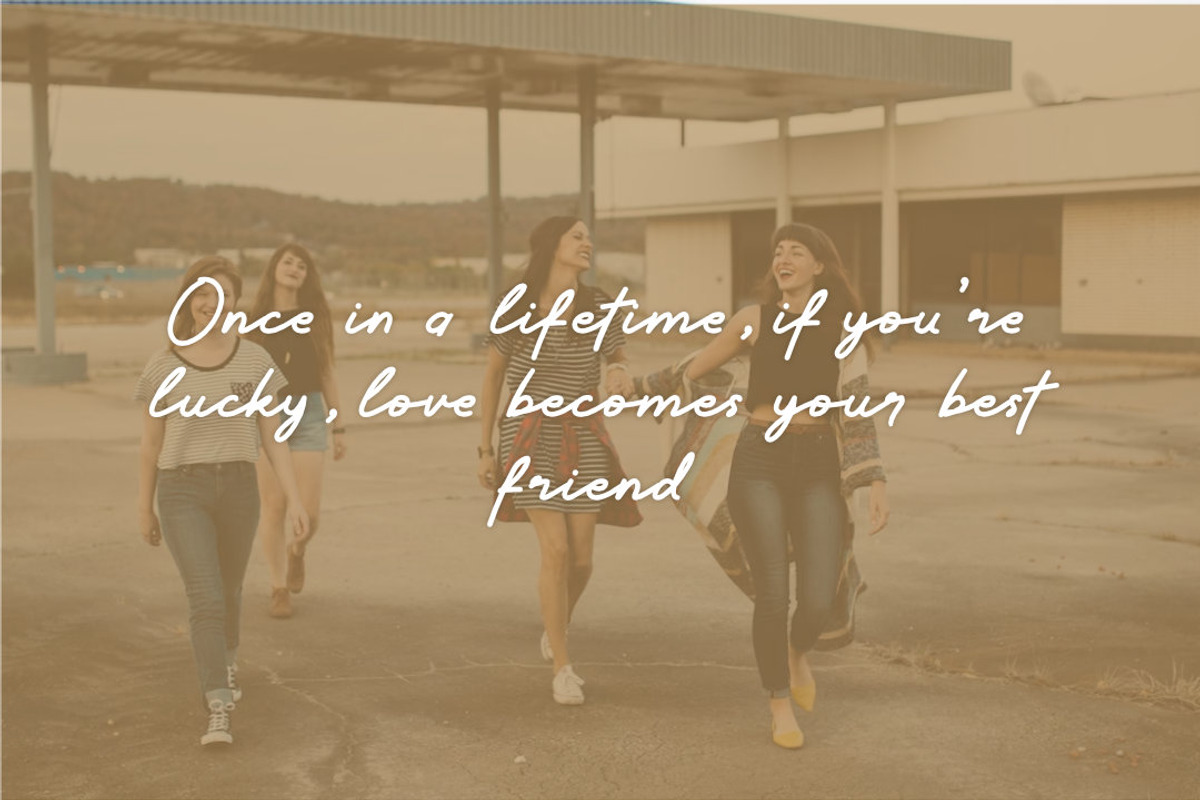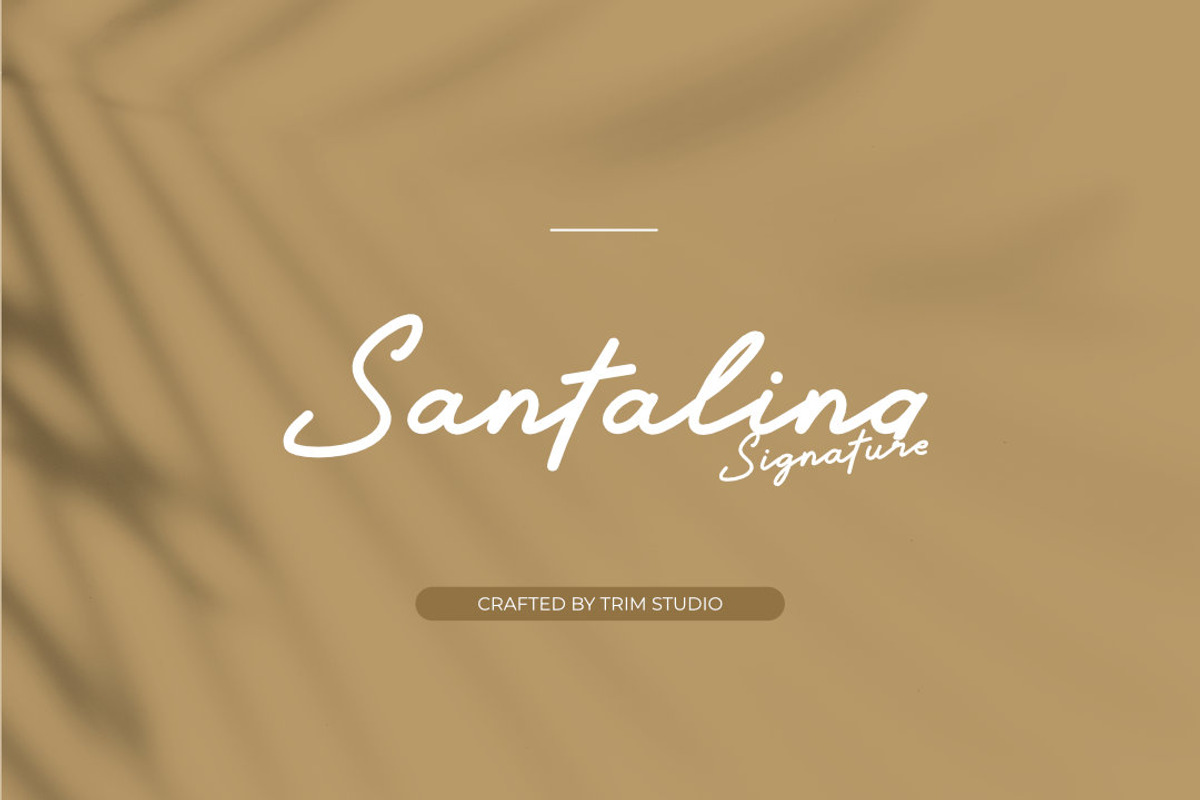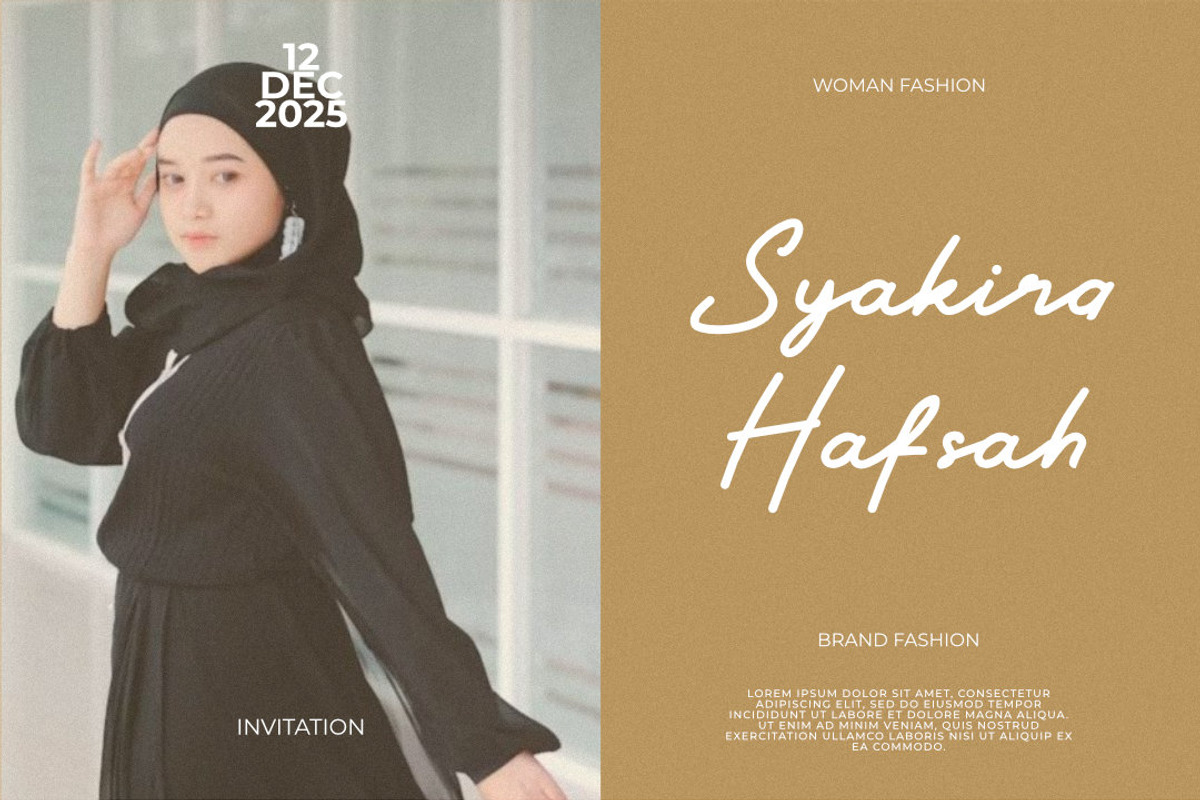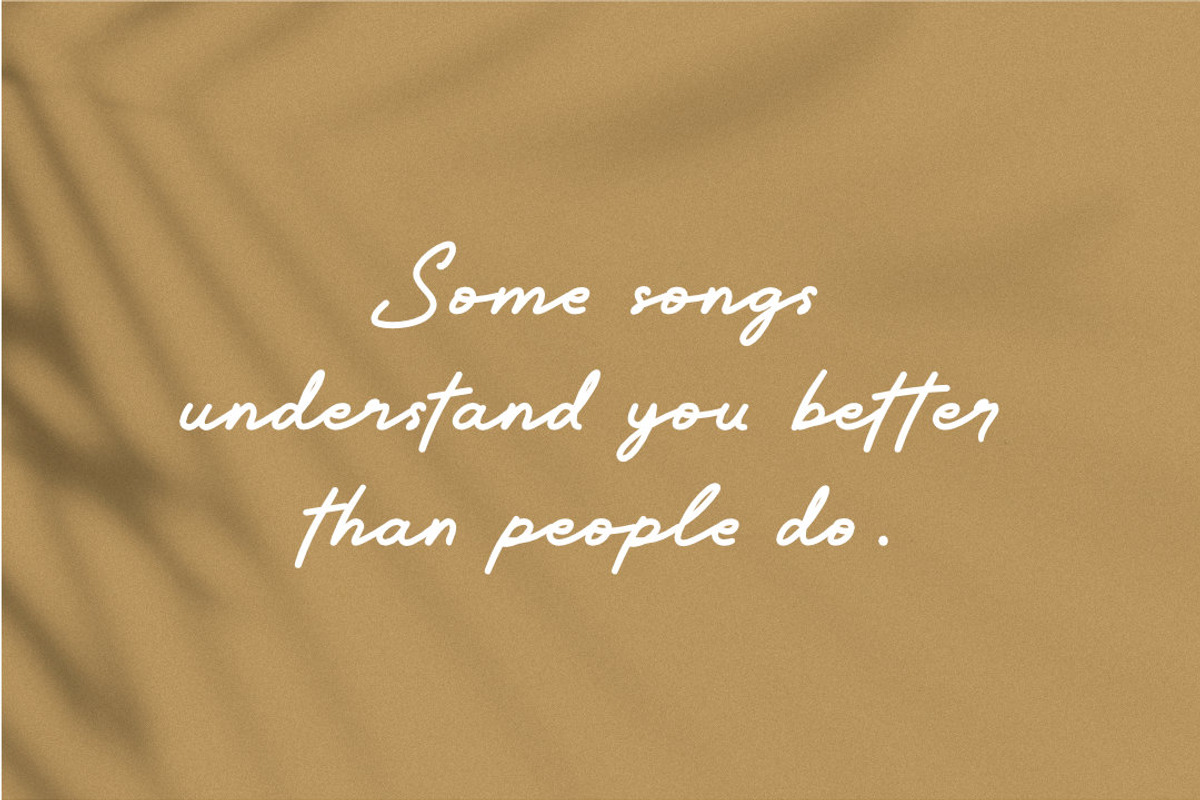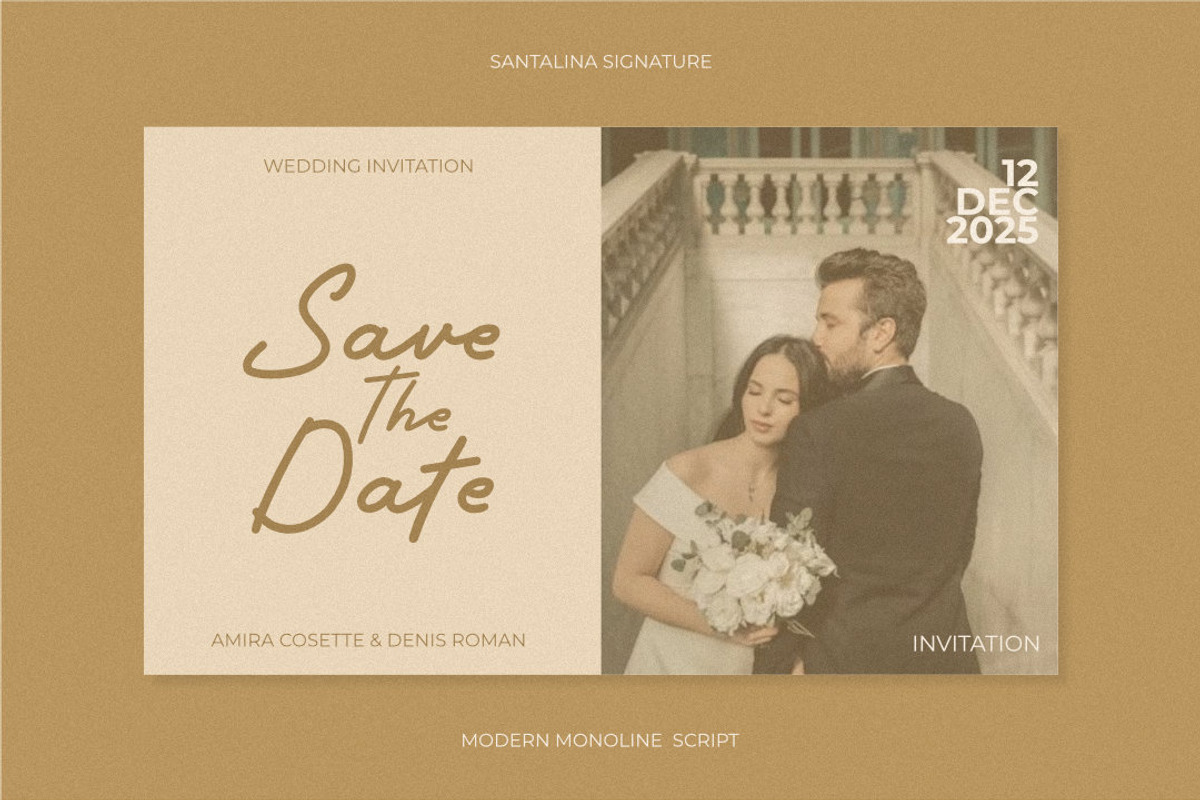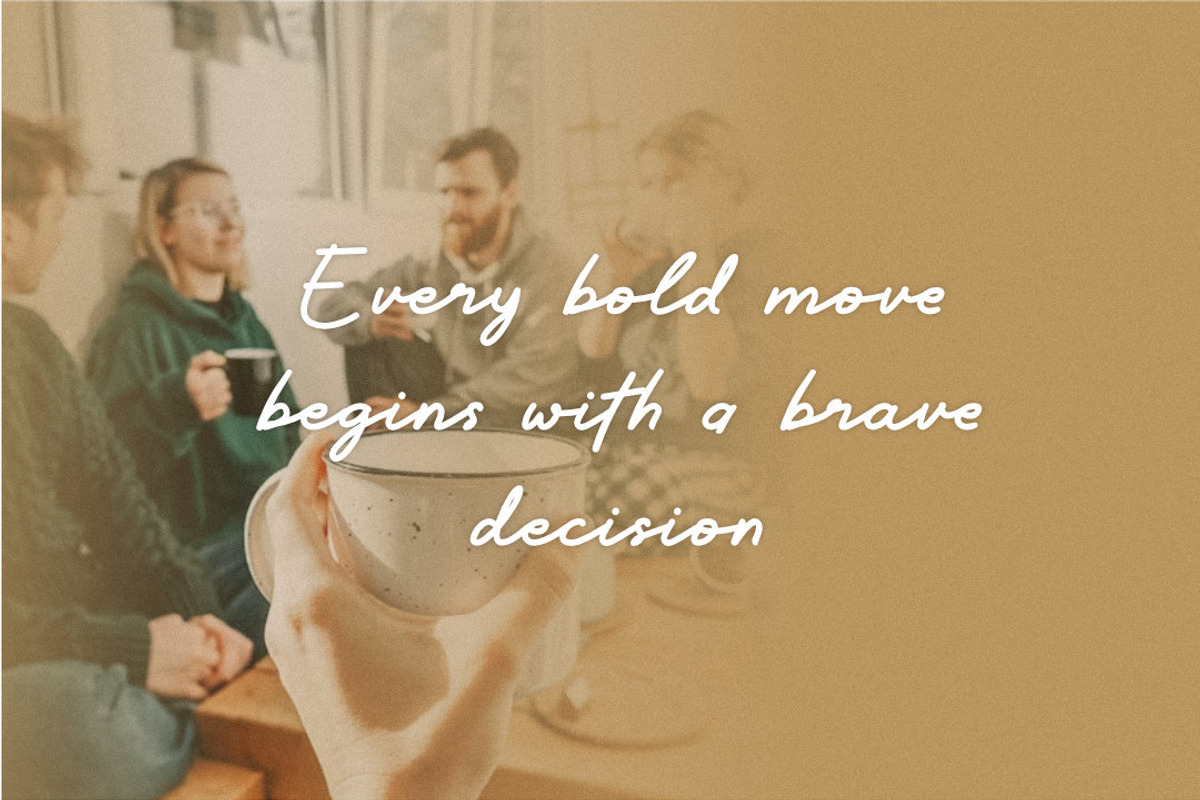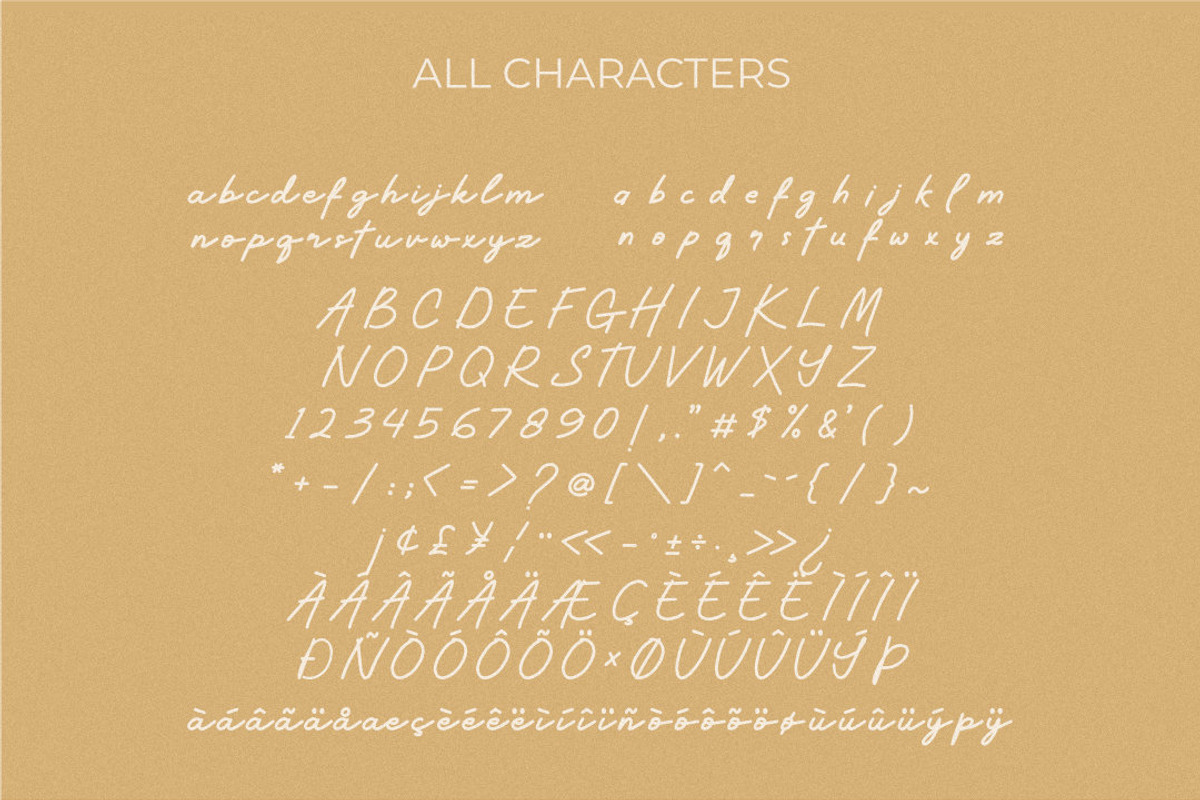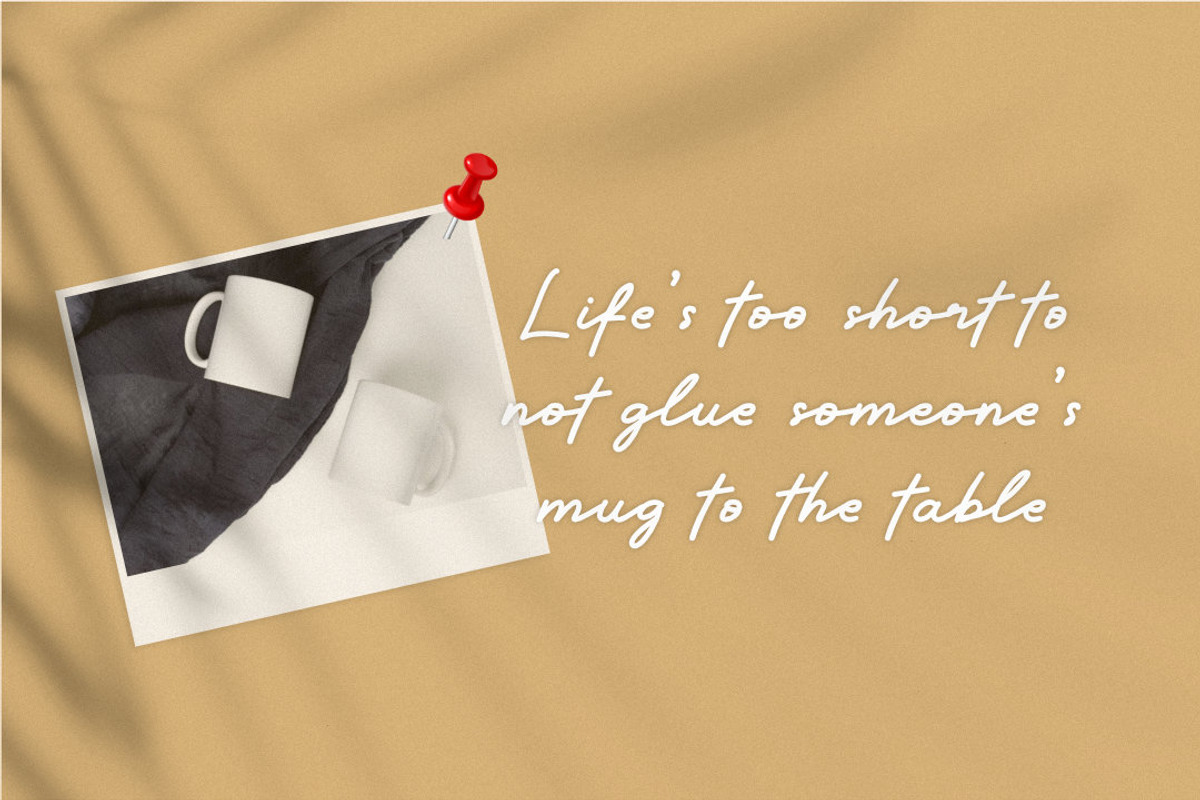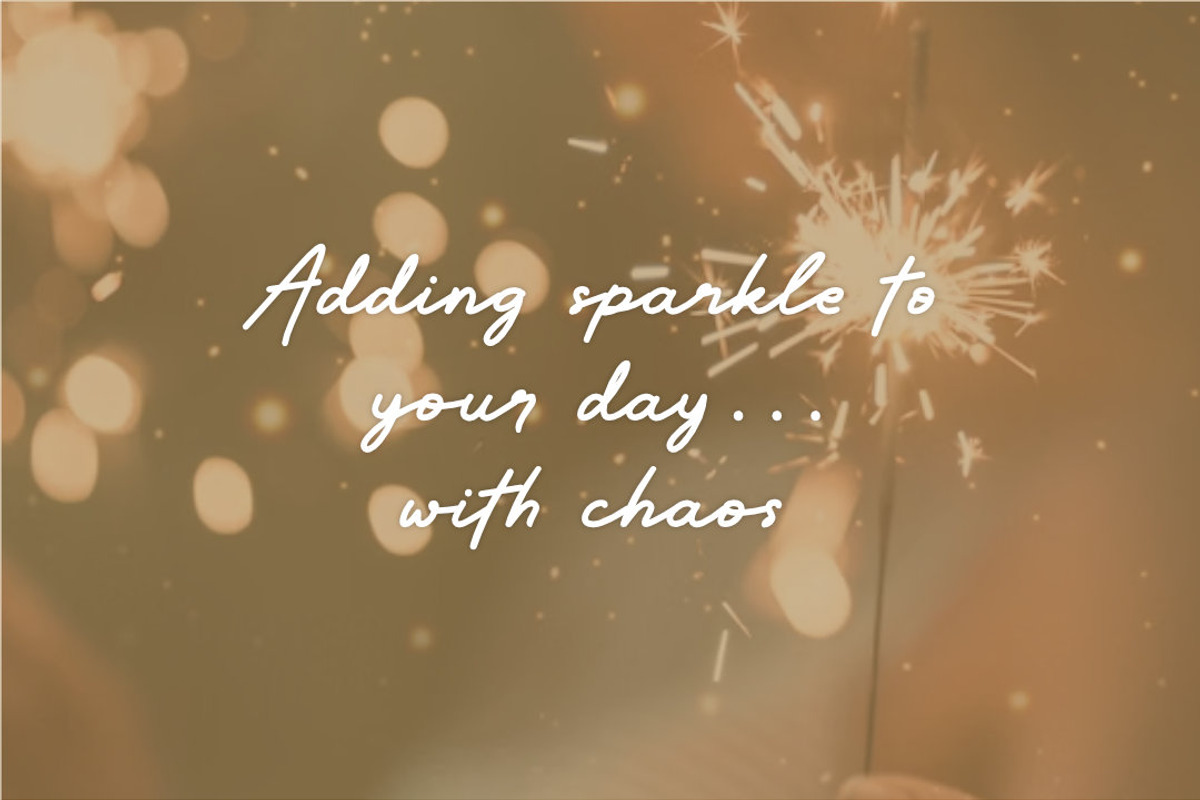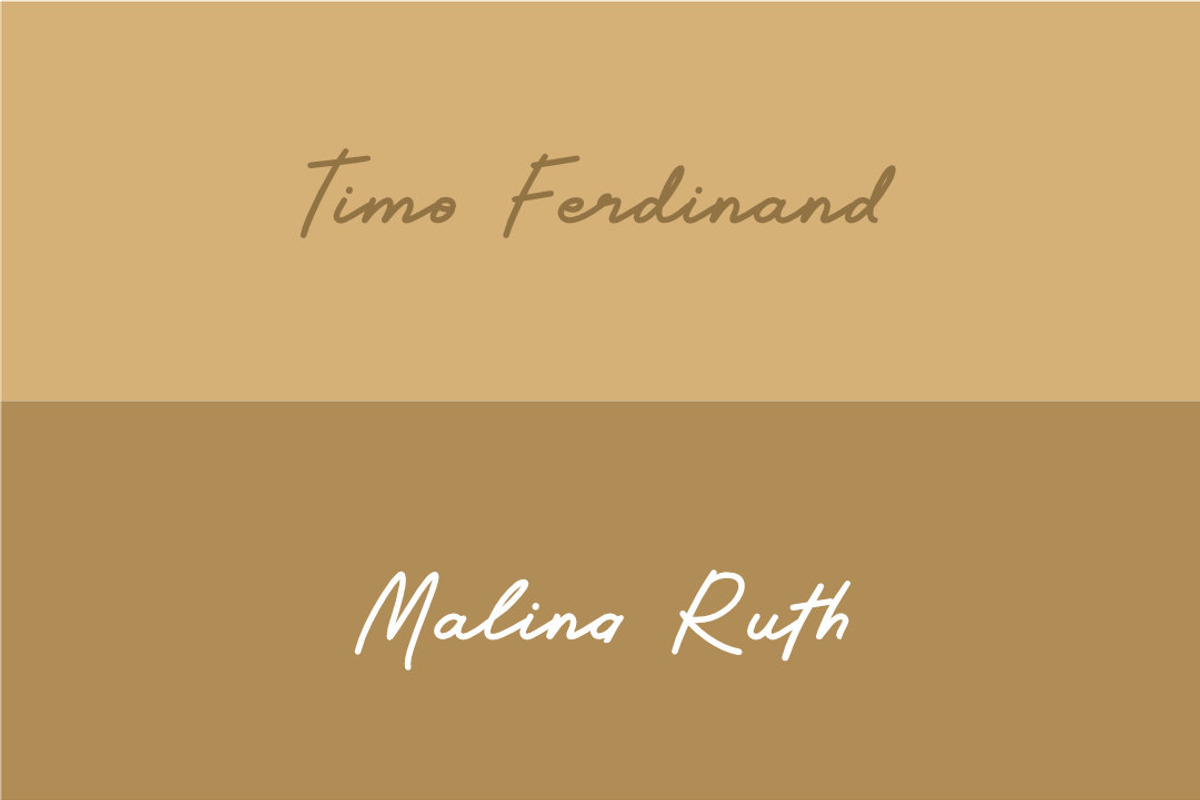
Santalina - Signature Monoline
Simple Modern Script. Flaunting a harmoniously continuous monoline design, this vibrant typeface exhibits an air of elegance through its sleek and fluid glyphs. Where timeless allure seamlessly fuses with a modern stroke, it becomes an aesthetically pleasing pick for a myriad of uses. Embrace the minimalist grace that comes from maintaining a balance of simplicity and sophistication with the Simple Modern Script font!